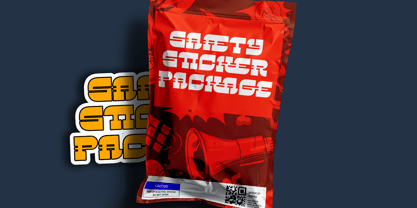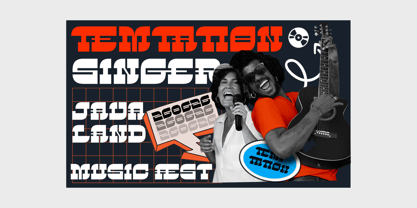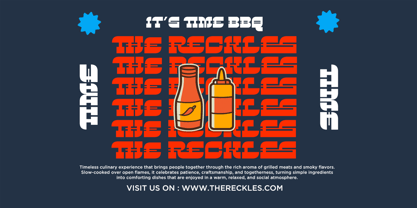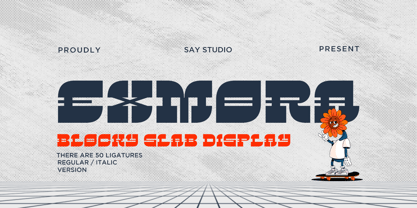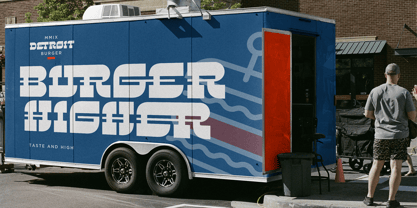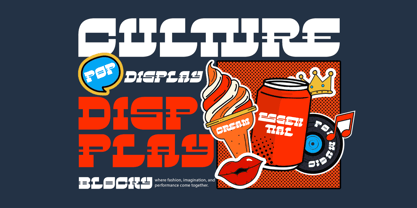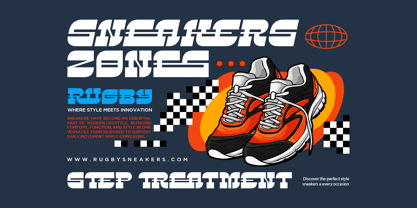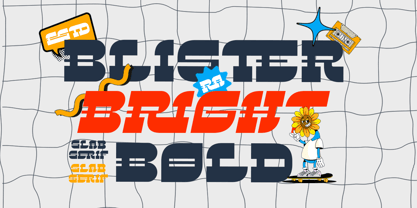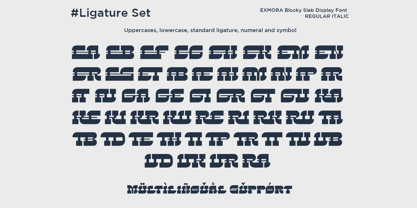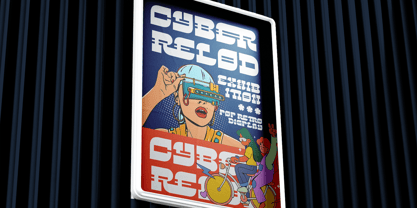
Exmora
par Say Studio
La famille de polices Exmora a été conçue par Mussyayin et publiée par Say Studio. Exmora contient 2 styles et options de package familial. En savoir plus sur cette famille
Exmora is a bold slab display font characterized by its chunky, geometric, and playful shapes. This typeface is designed to create a strong visual impact, making it an excellent choice for posters, headlines, logos, branding, packaging, streetwear designs, and various modern creative projects. With its solid structure and lively character, Exmora is perfect for eye-catching typography that conveys a contemporary, futuristic, and energetic vibe. Its versatility allows it to shine in both digital and print applications, ensuring your designs stand out with confidence. Thank You, Have a Good Day! Saystudio